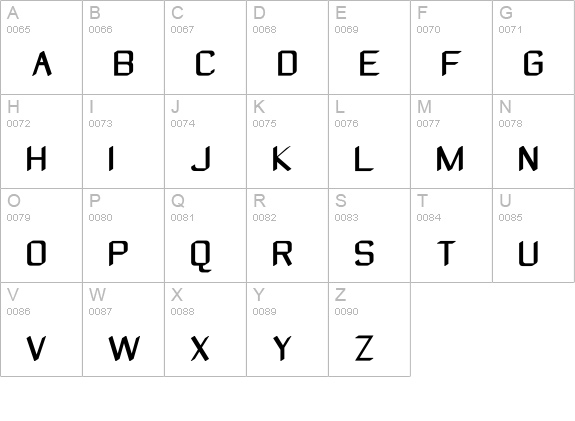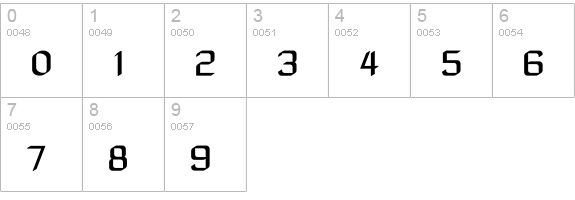
Zyphyte is a unique and modern font that combines sleek lines with a touch of elegance. This font is perfect for various design projects, from branding to web design, as it exudes sophistication and style. With its clean and crisp letterforms, Zyphyte stands out and adds a touch of professionalism to any project. What's even better is that Zyphyte is available for free download at FontsMarket.com. This means you can easily access this versatile font and use it in your creative endeavors without any cost. Whether you're a graphic designer, a content creator, or just someone looking to elevate their projects, Zyphyte is the perfect choice for adding that extra flair. Download Zyphyte now and let your creativity shine with this stunning font.